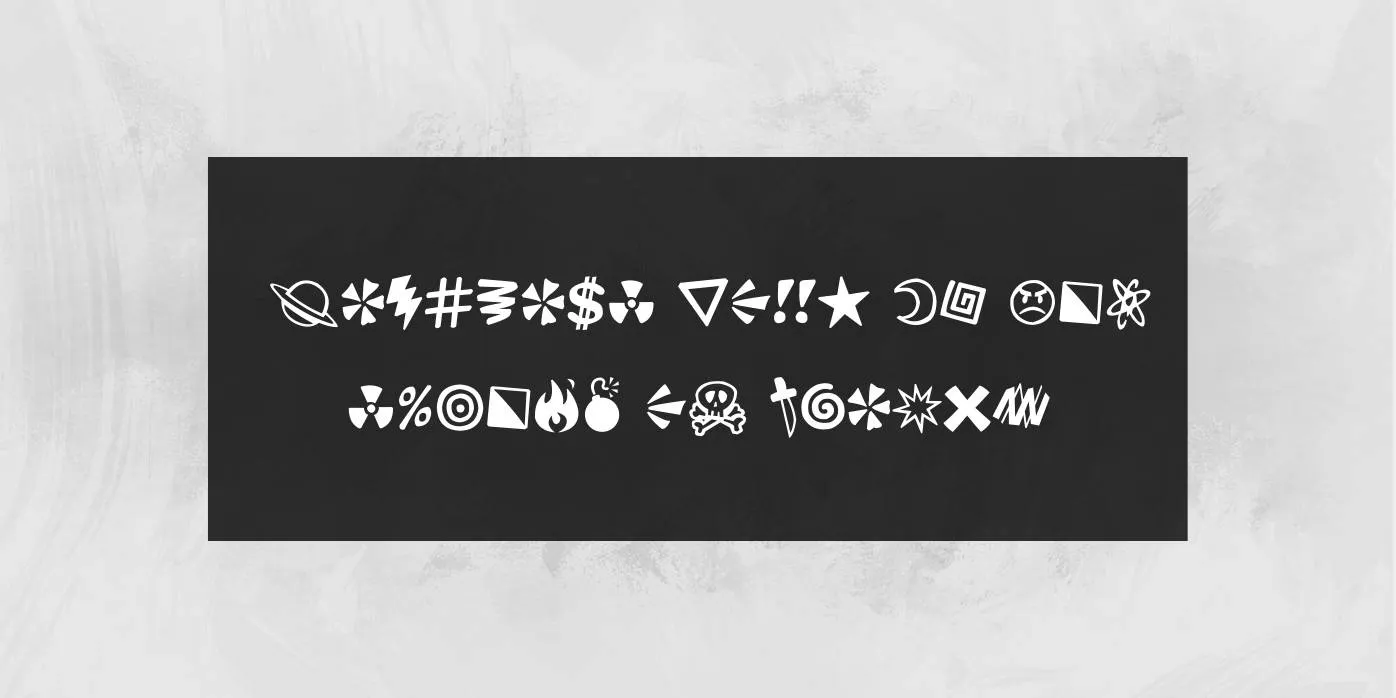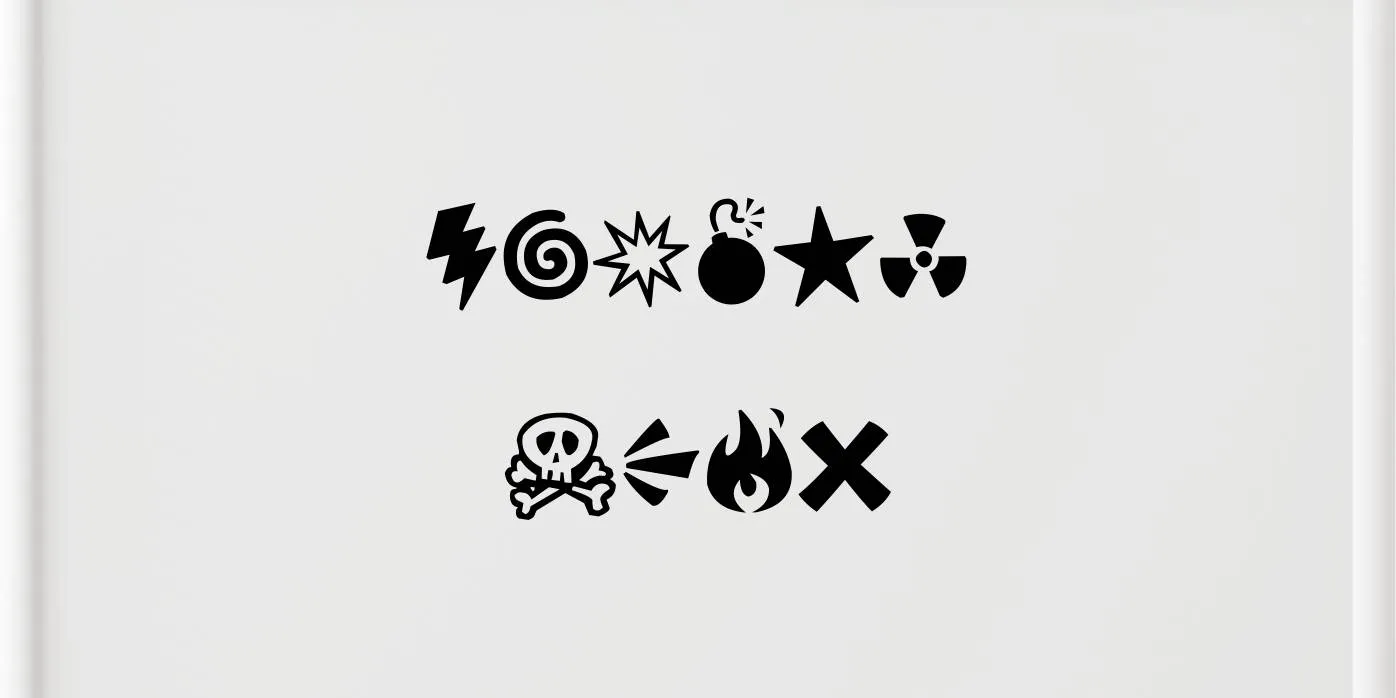
Curses Font
Here, we present a marvelous typeface that is known by the name Curses Font. This family belongs to the fancy family. This font was created by Vic Fieger. The designer has given this font a very unique and attractive look.
It is perfect for making headlines, posters, and logos. This font family includes weights like regular, italic, and bold. All of these weights have their own unique look. This font also supports many languages.
Curses Font is a very versatile font and can be used for a variety of purposes. Its copy and paste function is best for many designs. Another similar font which is obelix pro font is perfect for different designs. This family is perfect for those who are looking for something different and unique.